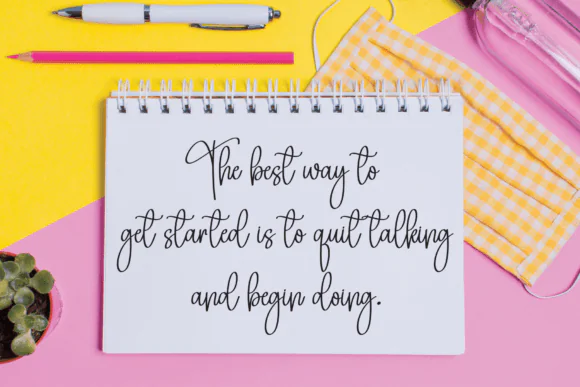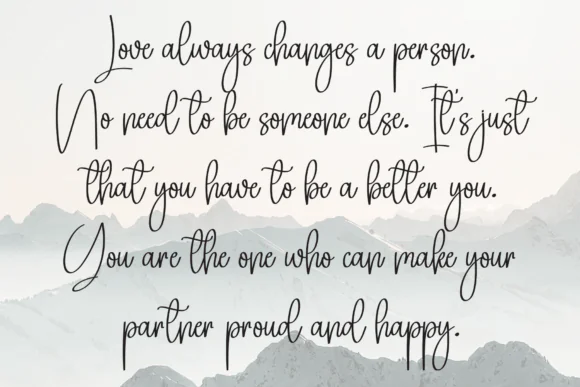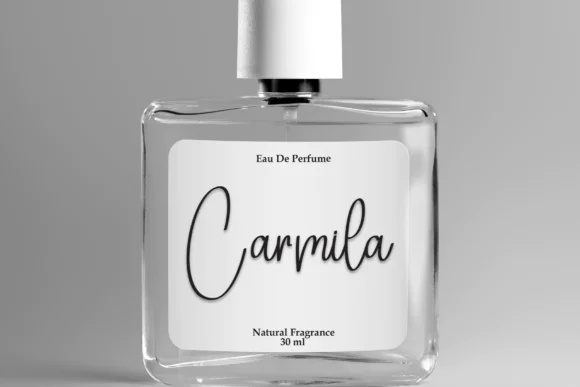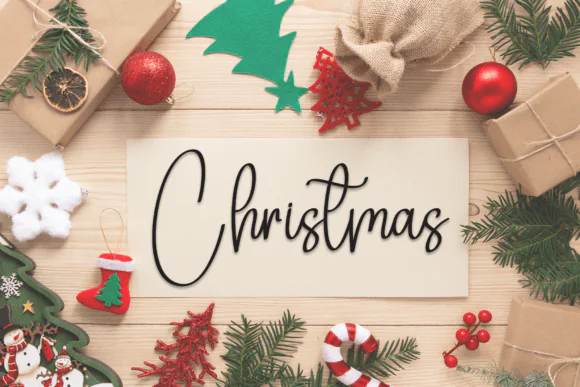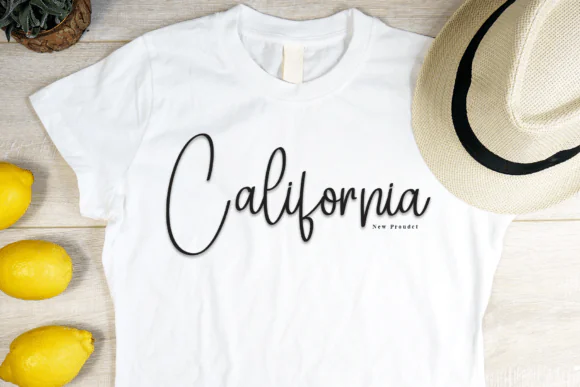
Create personal, elegant, and stylish designs with Background Signature Font, a beautiful handwritten typeface designed with a natural flowing style. Its graceful cursive writing look makes it perfect for projects that need a soft, personal, and professional handwritten touch.
Background Signature Font is ideal for designers, small business owners, wedding creators, boutique brands, crafters, and digital sellers who want to add a refined handwritten feel to their creative work. Its elegant flow works beautifully for invitations, logos, branding, social media posts, greeting cards, product labels, packaging designs, quote graphics, stationery, and personalized gifts.
This font brings a natural signature-style appearance to your typography, making it especially useful for projects that need to feel authentic, graceful, and memorable. Whether you are designing a stylish logo, a romantic invitation, a social media quote, or boutique packaging, Background Signature Font adds a polished handwritten finish.
Design Style:
Handwritten, signature, cursive, natural, flowing, elegant, stylish, personal, graceful, refined, modern, romantic, soft, and professional.
Use Background Signature Font to give your designs a beautiful handwritten personality and create typography that feels elegant, natural, and easy to love.